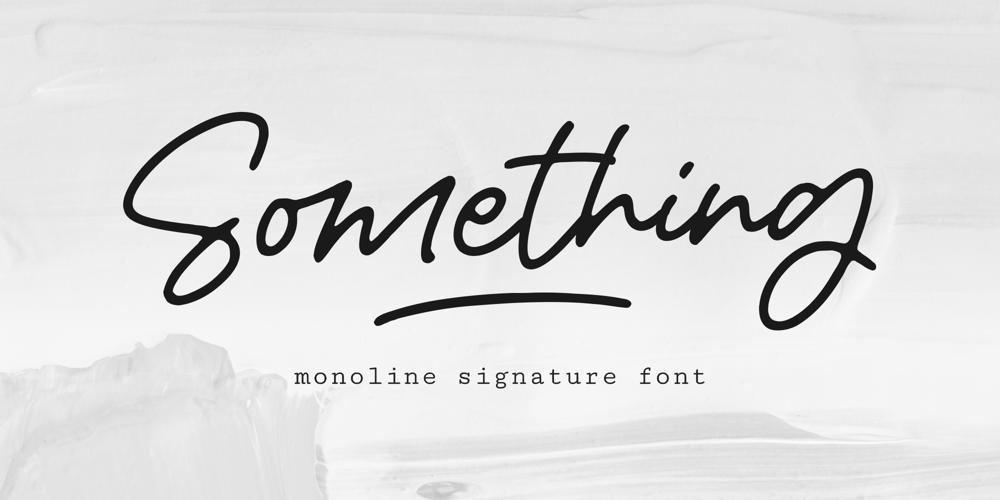
Something Font Family was designed by Bagus Arya Kirana and published by Krntype Studio. Something contains 1 styles and family package options. Introducing Something!A stylish signature font. designed to display luxury and shopisticated writing.With this font, you can built an amazing work. Such as stylish branding & logos, packaging, handwritten quotes, merchandising, advertising, etc.